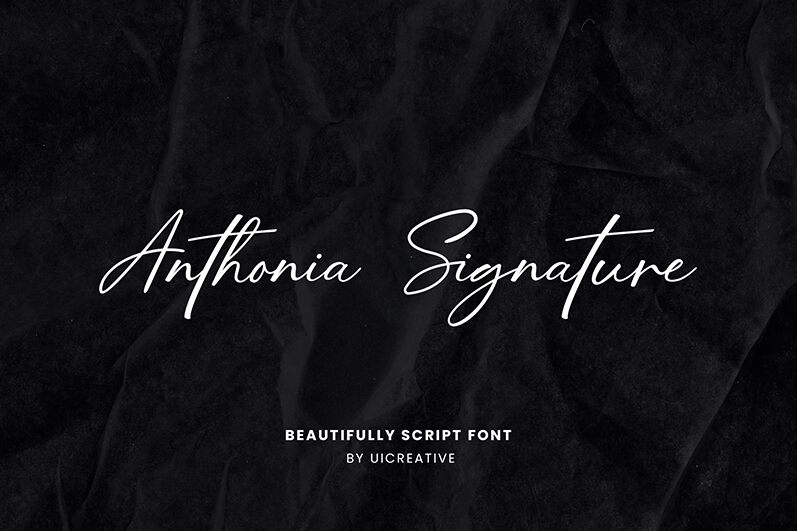
Anthonia Signature font is a handwritten typeface designed with style and elegance by UI Creative. Sophisticated and expressive, Anthonia Signature is simple to work with thanks to its relaxed, clear shapes which add subtle creativity to each character. This modern flowing font can be used for both personal and commercial projects necessitating an authentic artistic handwriting effect.
Anthonia Signature is perfect for use in social media graphics, magazines, newspapers, children’s books, or video games targeting young adults. Touch on its minimalist vibes in your menu designs, web pages, applications, presentation slideshows along with other print or digital mediums that are characterized by their professional appearance.